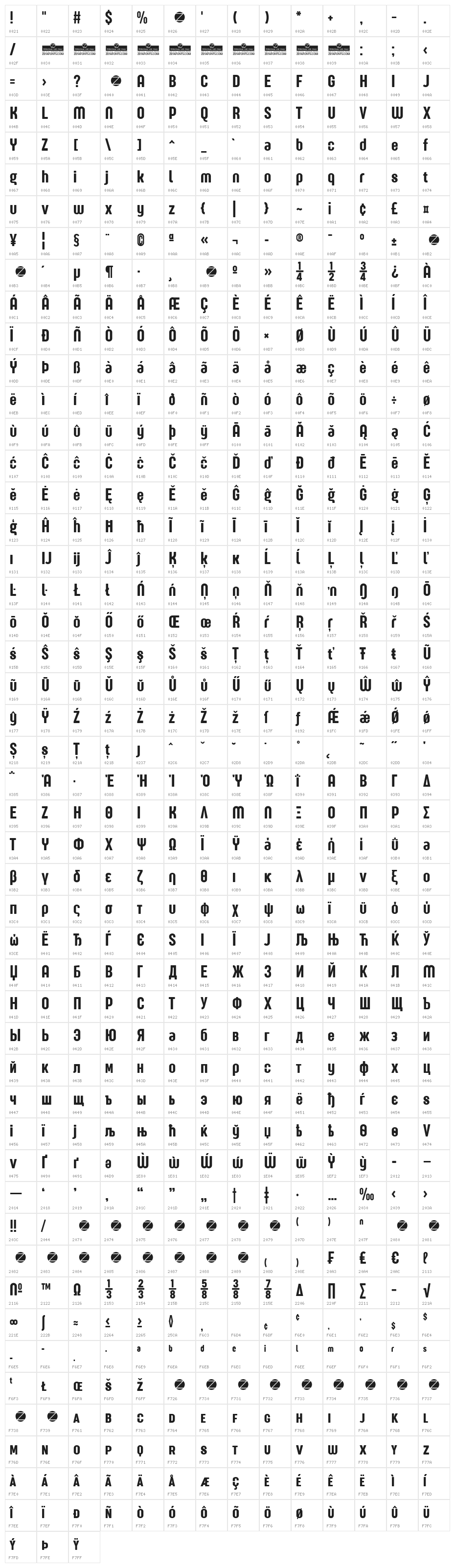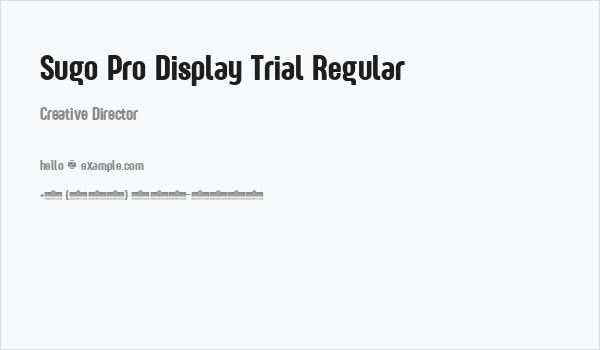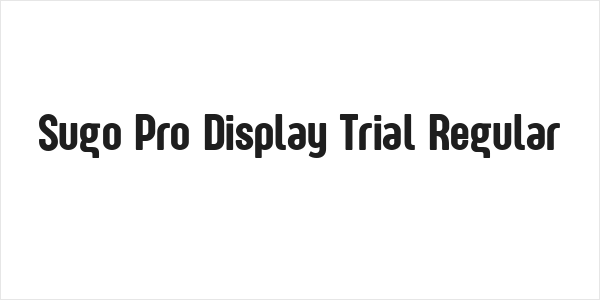
Sugo Pro Display Trial Regular Font
Sugo Pro Display Trial Regular Description
This typeface features a bold and modern design with smooth, rounded edges that give it a friendly and approachable appearance. The uppercase and lowercase letters maintain a consistent height, contributing to a uniform and cohesive look. The numerals and special characters are crafted with the same attention to detail, ensuring readability and style. Its geometric shapes and clean lines make it suitable for a variety of design applications, from digital interfaces to print media. The font's overall aesthetic is contemporary, with a touch of playfulness that can add character to any project.
| Use Case | Headlines, Logos, Digital Interfaces |
| Proposed Projects | Ideal for branding, advertising, packaging, and digital interfaces. |